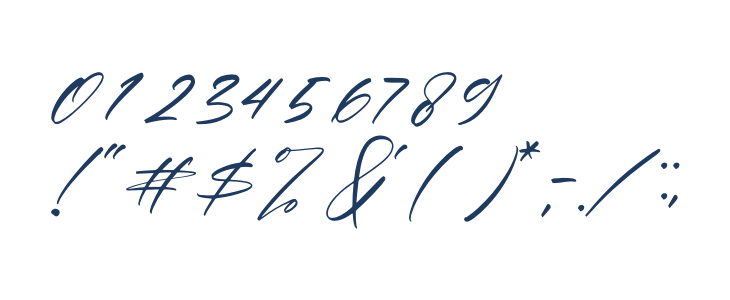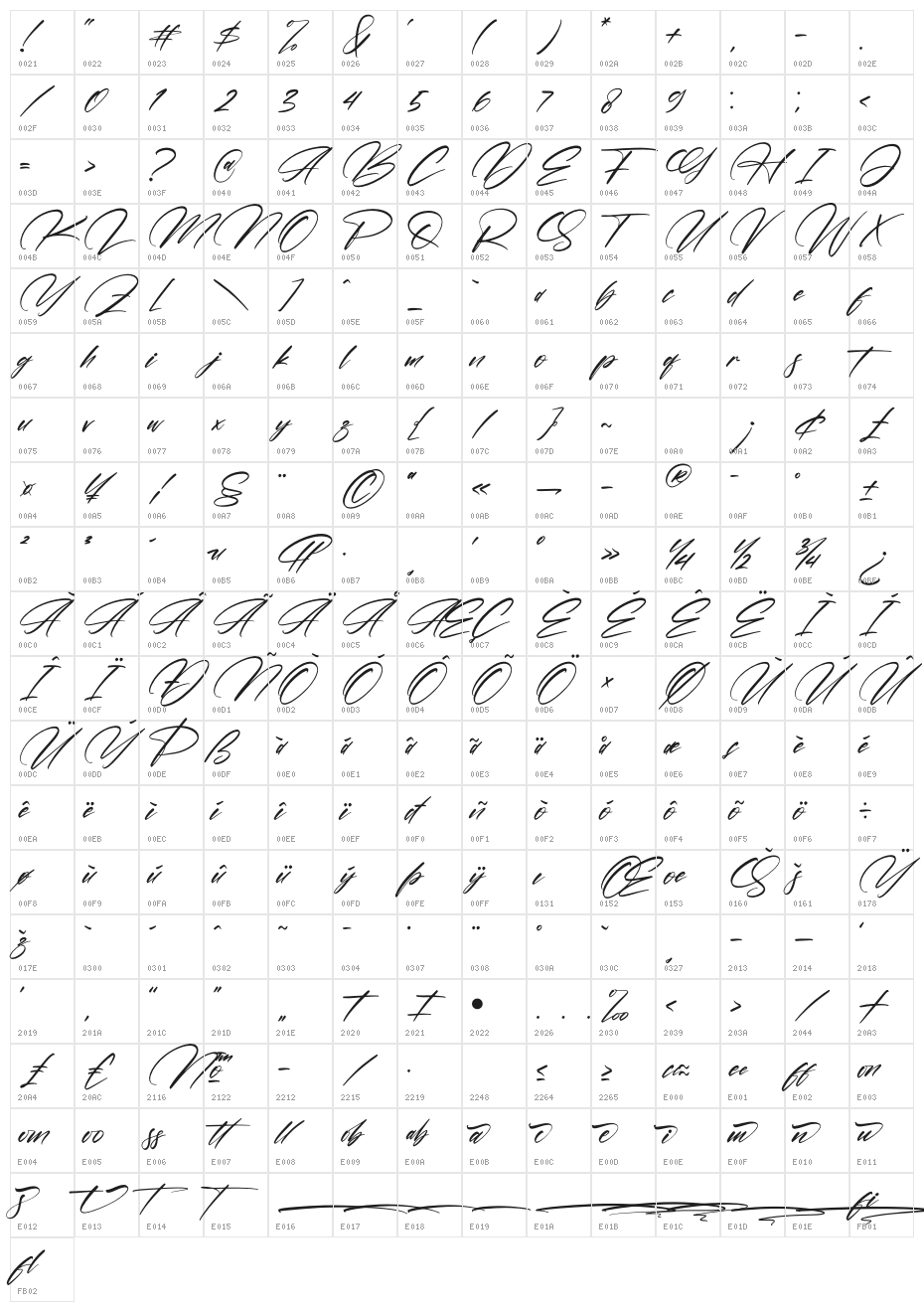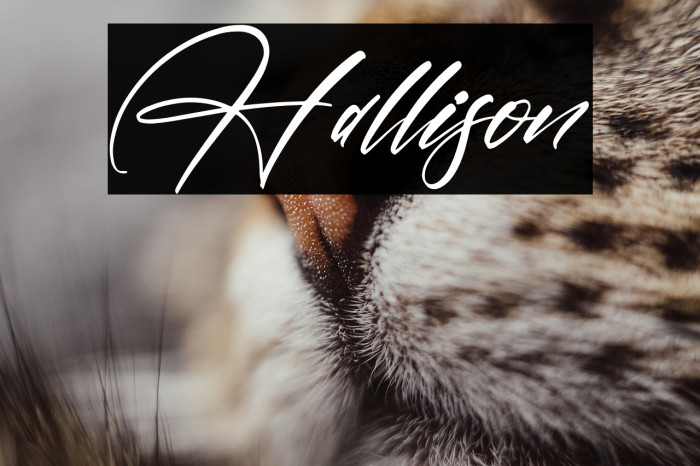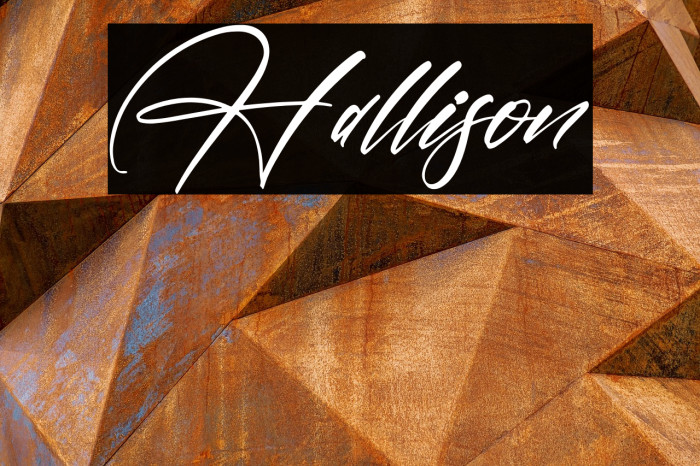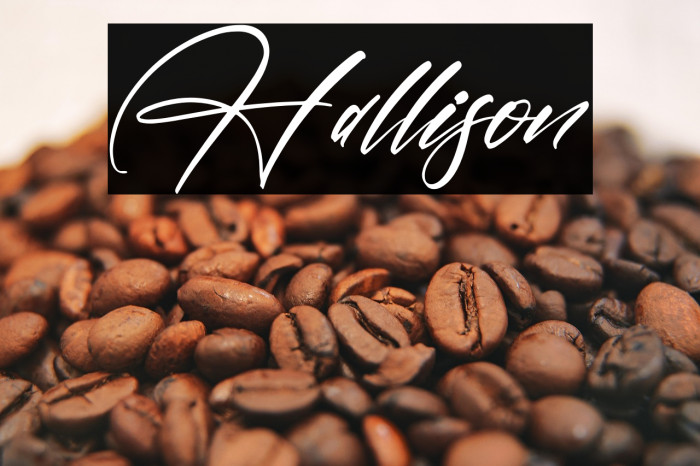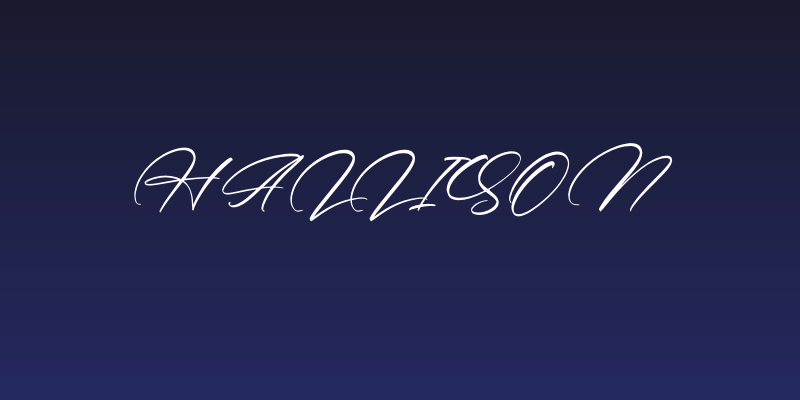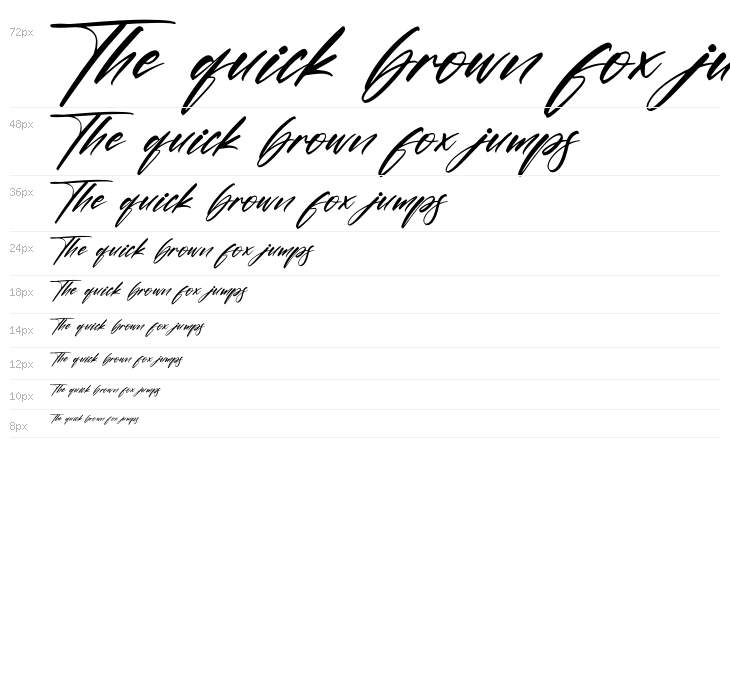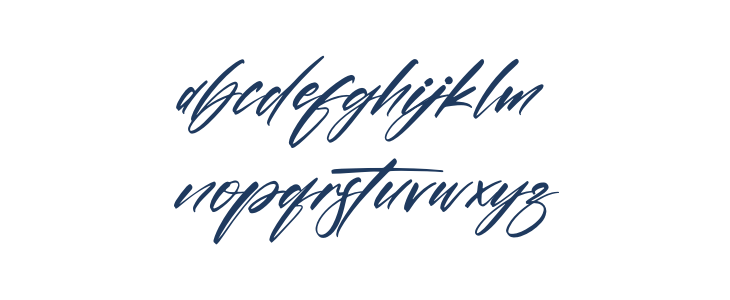
Hallison Font
Hallison Description
This font exudes a dynamic and expressive style, characterized by its fluid, cursive script. The letters are elegantly connected, with a natural flow that mimics the swift strokes of a calligrapher's pen. The uppercase letters are slightly more restrained, offering a graceful balance to the more exuberant lowercase characters. The numerals and special characters maintain the same lively energy, ensuring consistency across all glyphs. The overall impression is one of sophistication and artistic flair, making it suitable for projects that require a personal touch.